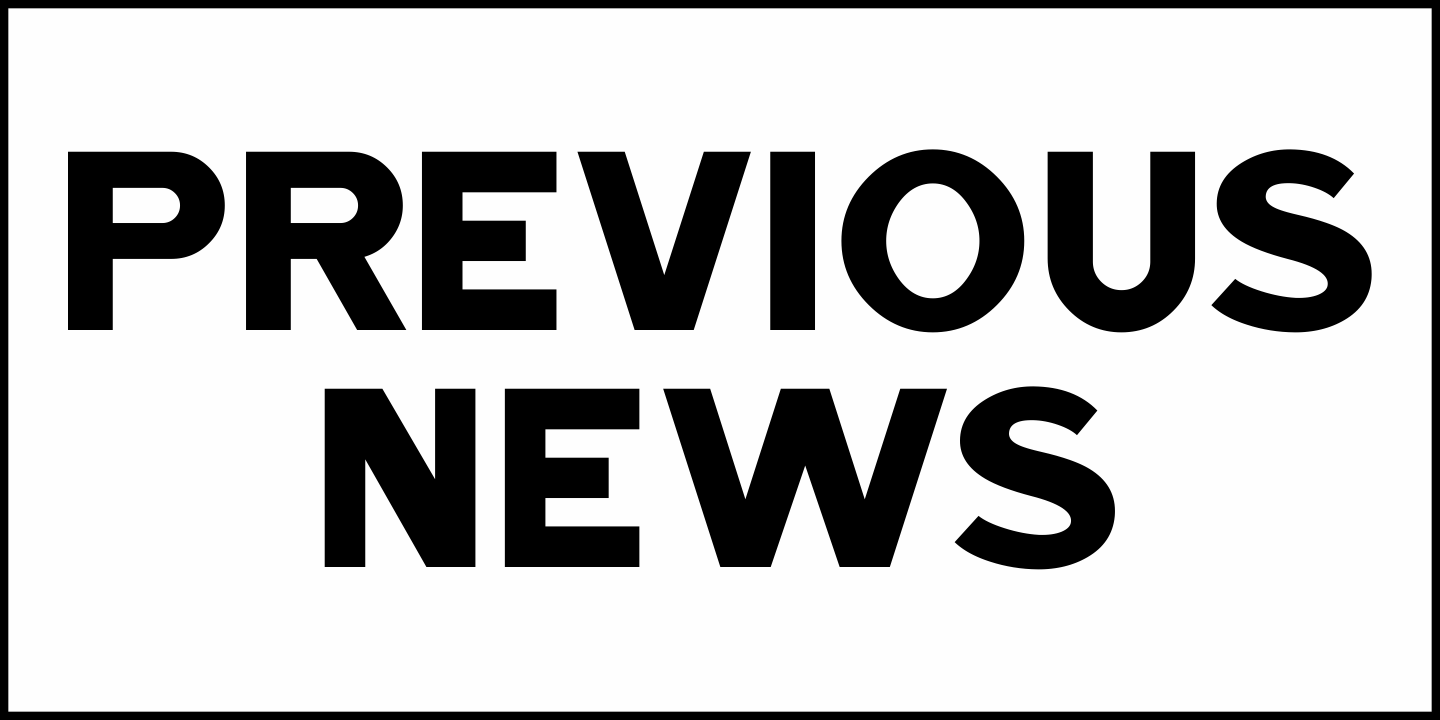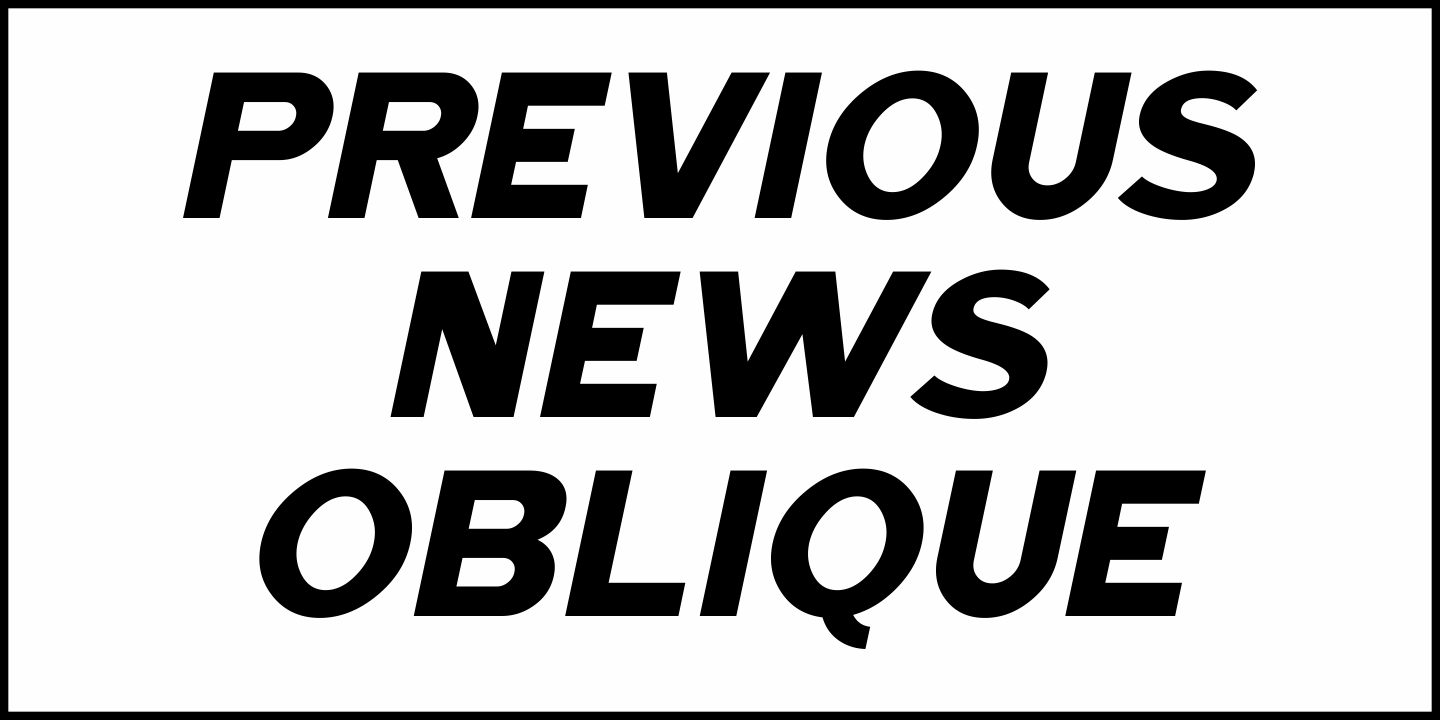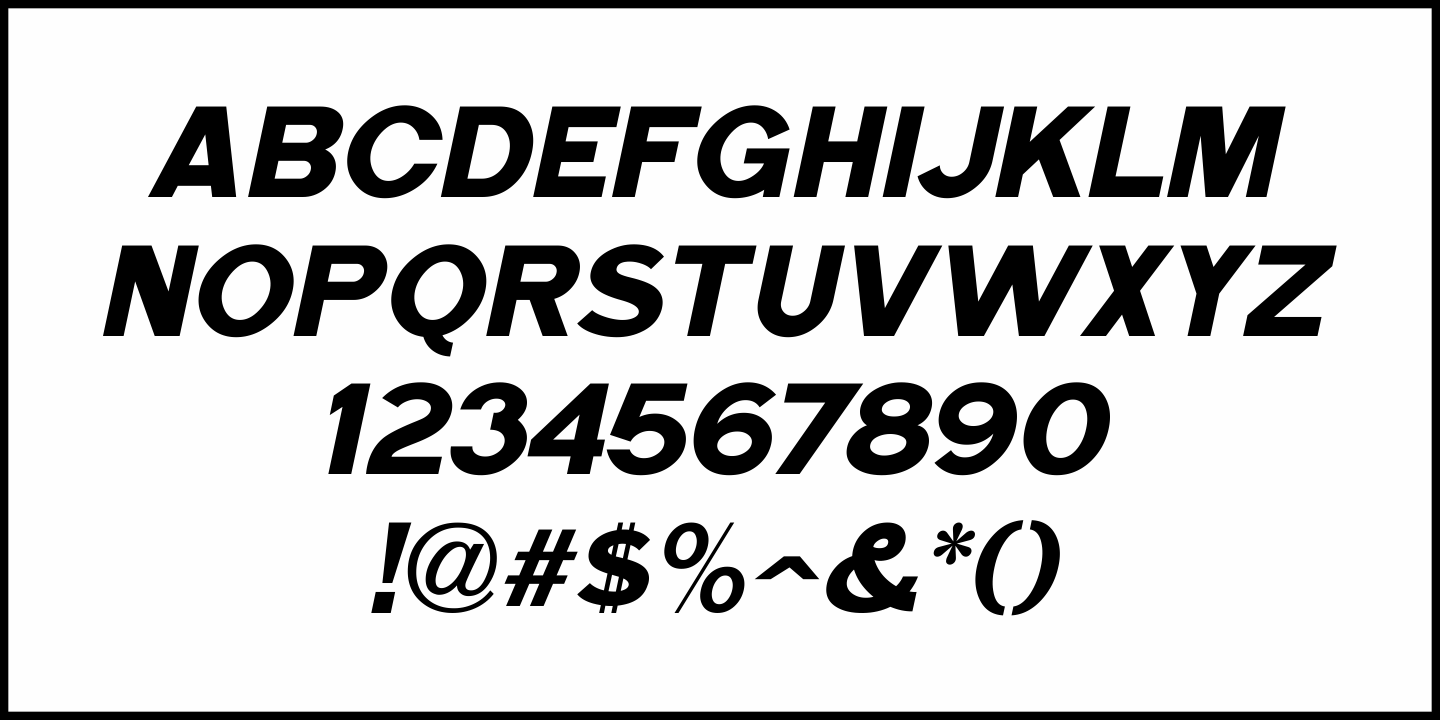
Previous News
A headline from an newspaper from February 15, 1929 was the design inspiration for Previous News JNL, which is available in both regular and oblique versions.
Simple and to the point, this bold Grotesk sans design bears a distant resemblance to 'Franklin Gothic', but has its own distinct characteristics.
Previous News JNL Regular by Jeff Levine Fonts